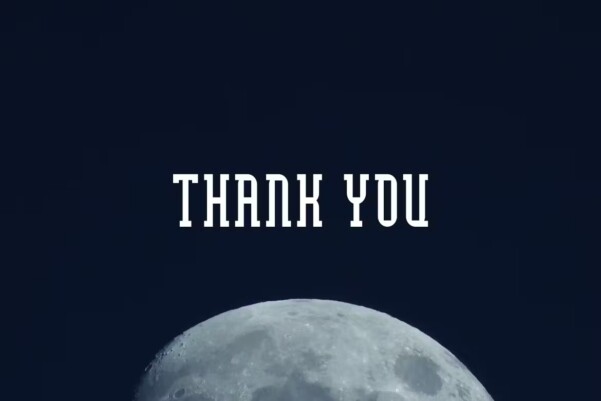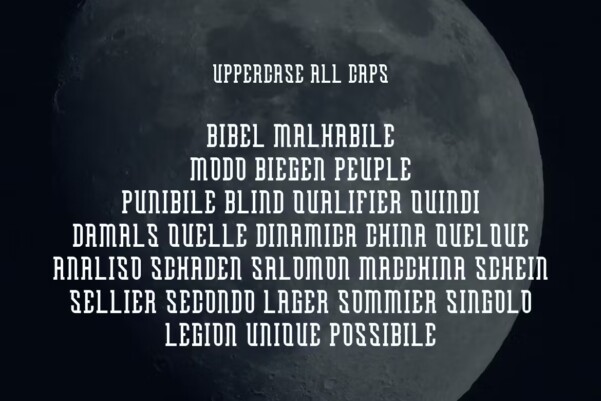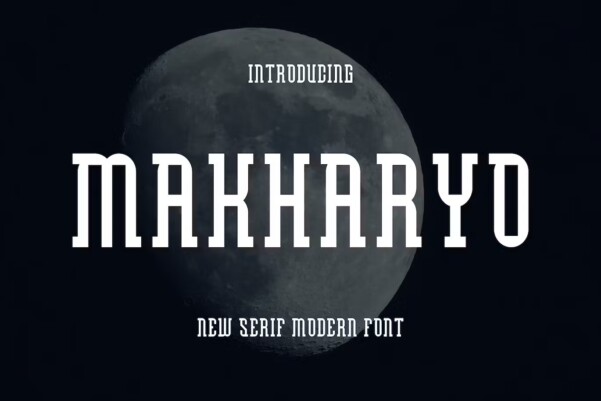
Makharyo Font
Makharyo Font is a modern and authentic font. Perfect for professional and product branding needs. This font is suitable for any branding project such as quotes, logo, blog header, poster, banner, letter, invitation, stationery, etc. Designed as a versatile and flexible tool that can be used on a range of projects and mediums, outstanding in a wide range of contexts